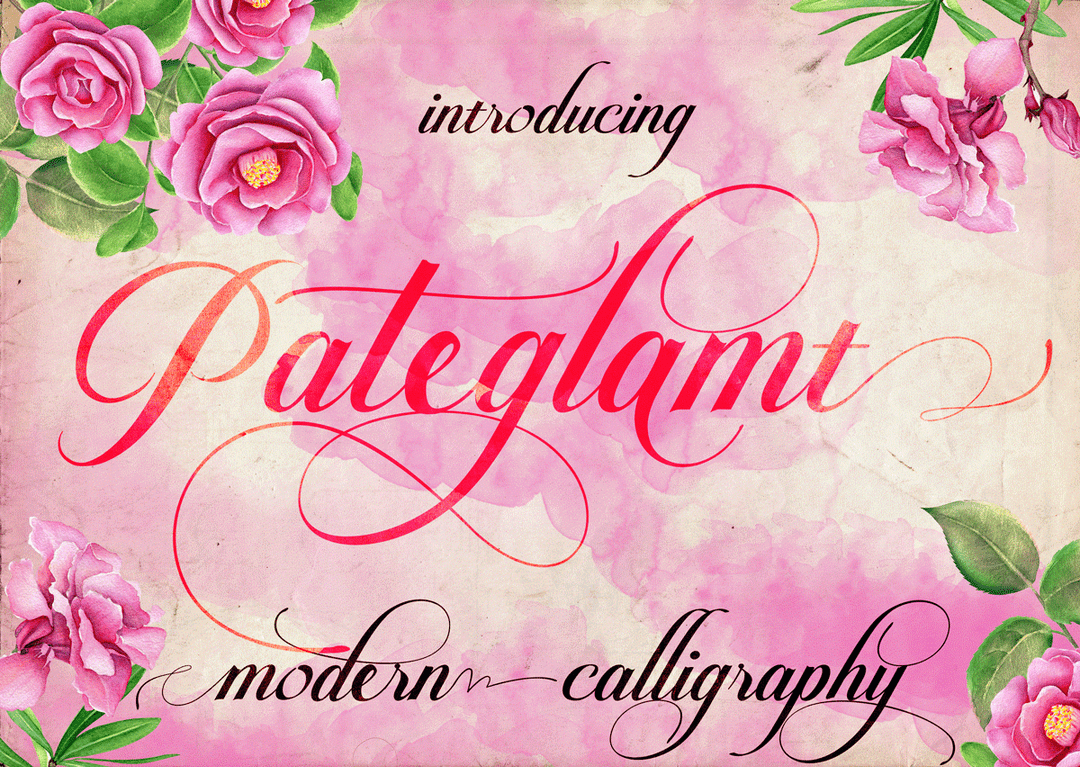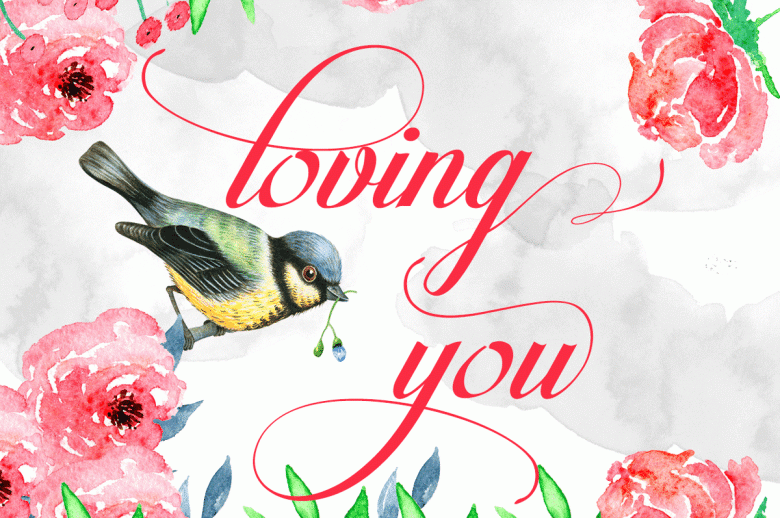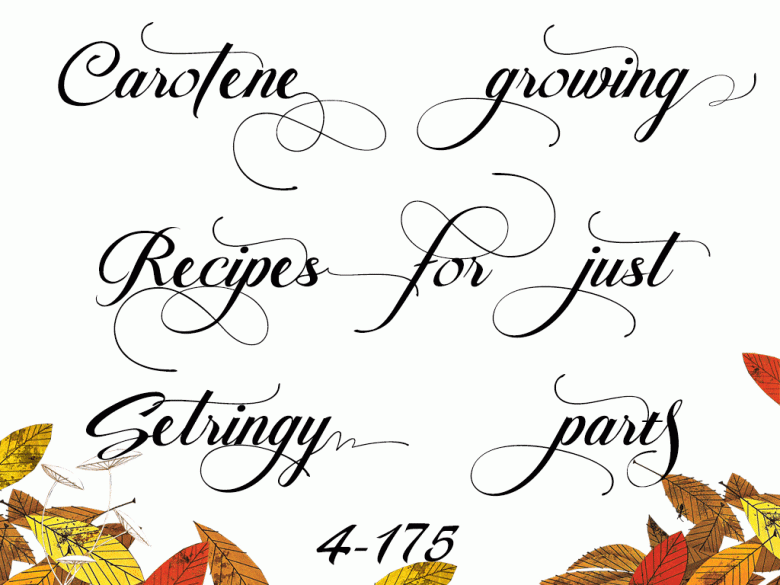
Introducing Pateglamt Script font. It is a stunning modern calligraphy especially suitable for your design project in need of banner, poster, print, social media and any artwork.